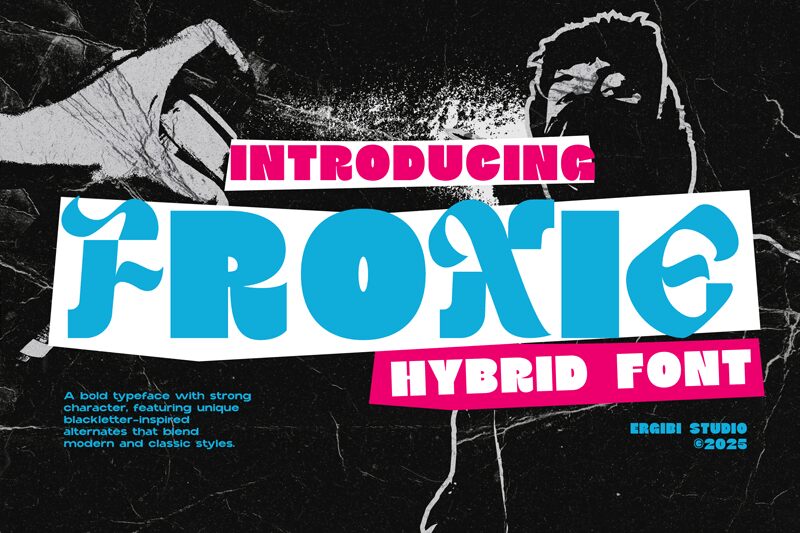
Froxie font is a versatile free font where the past and the future collide. It is inspired by classic typography, architectural references, modern geometric influences, and contemporary art. The outcome is a unique mix of the old mixed with the new to form new relationships. Mixing together several really inspiring concepts, this all cap typeface can find is a place in several industries.
The eye-catching visual presence makes Froxie comfy on branding projects, book covers, magazines, packaging, advertising, and posters. It has a nice futuristic yet gentle sensation that allows it to be highly readable in larger formats.